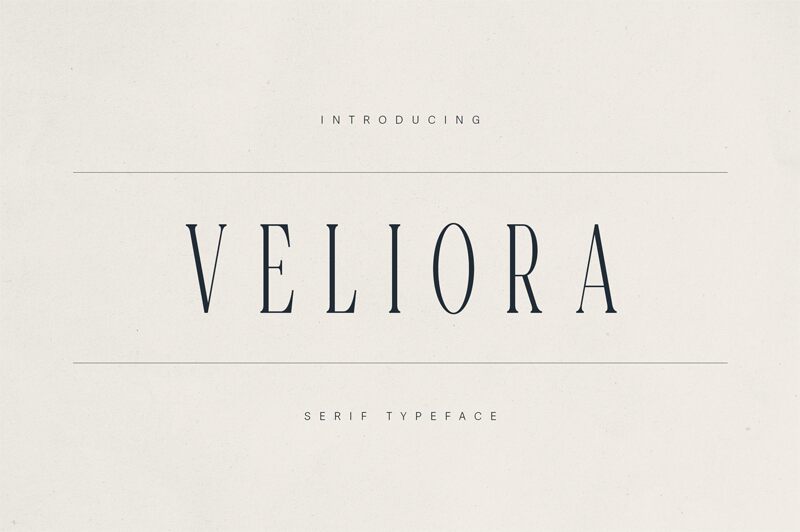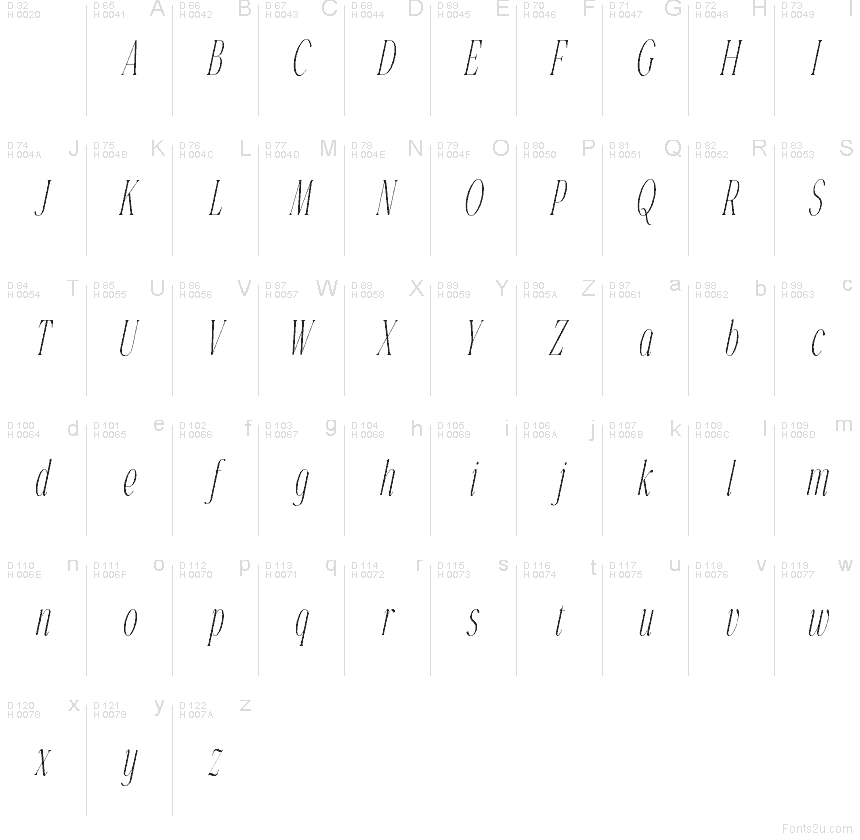
Veliora Demo Italic
Veliora Italic font by VPcreativeshop is a free elegant serif typeface that leans into a narrow, sweeping rhythm and whisper-thin strokes. The letters feel like they’ve been pulled by a fine ink pen—tall, poised, and slightly dramatic—giving every word a sense of movement and couture-level refinement. In the Veliora family, this italic cut stands out as the expressive, fashion-forward voice that catches the eye without shouting.
Using Veliora Italic, headlines instantly feel editorial and luxurious, especially at larger sizes where its slender curves can breathe. This free font shines on magazine covers, beauty and fashion branding, perfume packaging, portfolio sites, wedding stationery, and social media graphics. Pair it with a clean geometric sans for body text to keep layouts readable while letting Veliora Italic carry the glamour and personality.